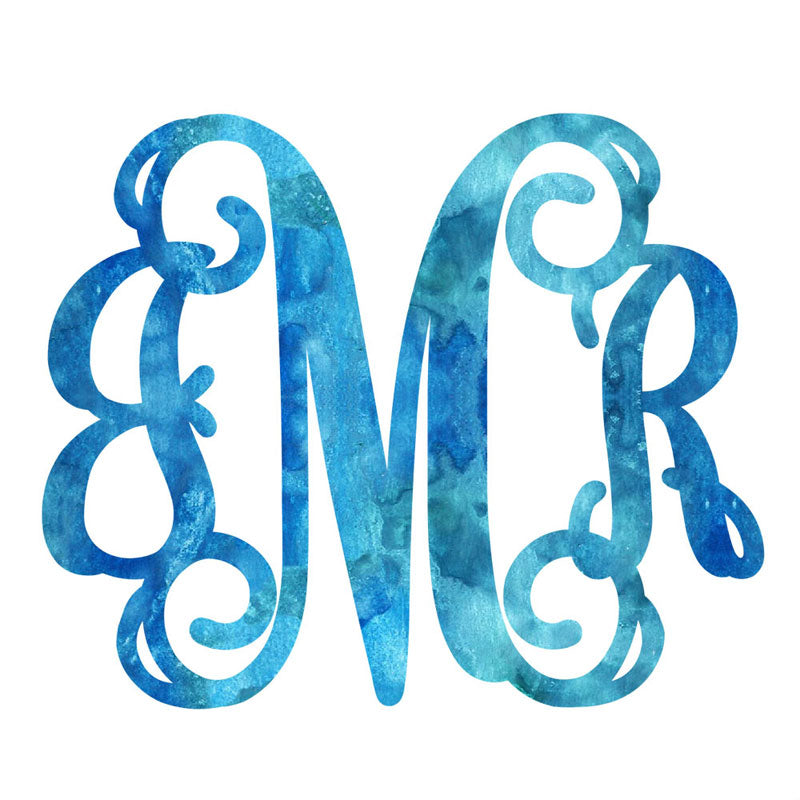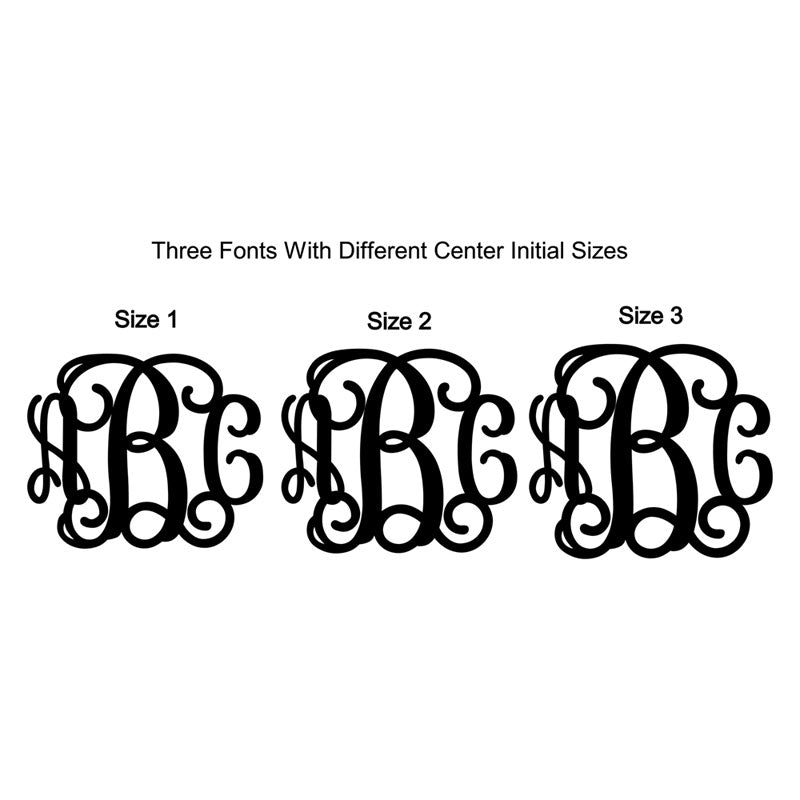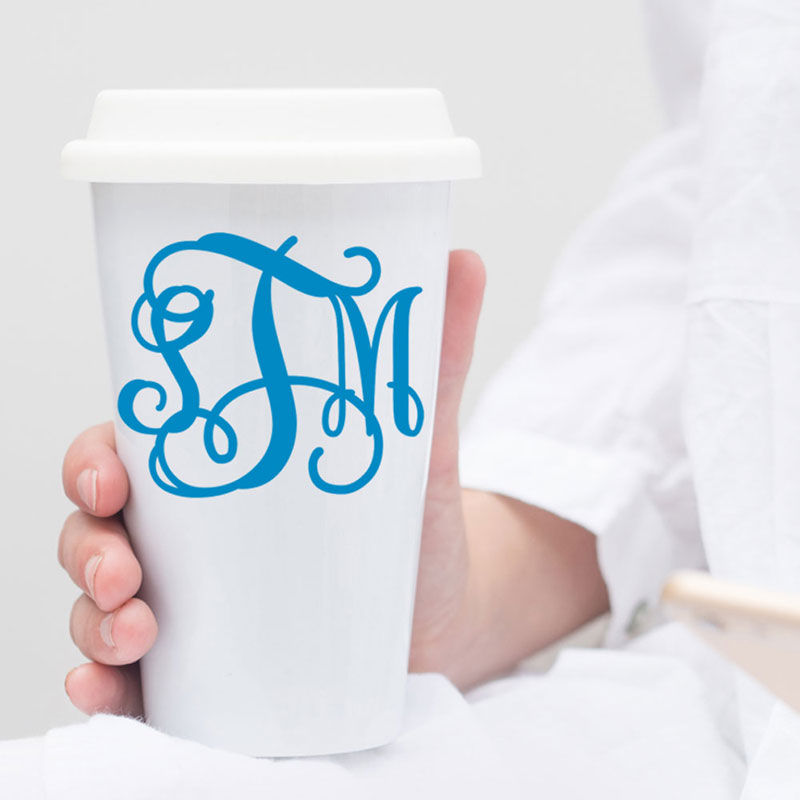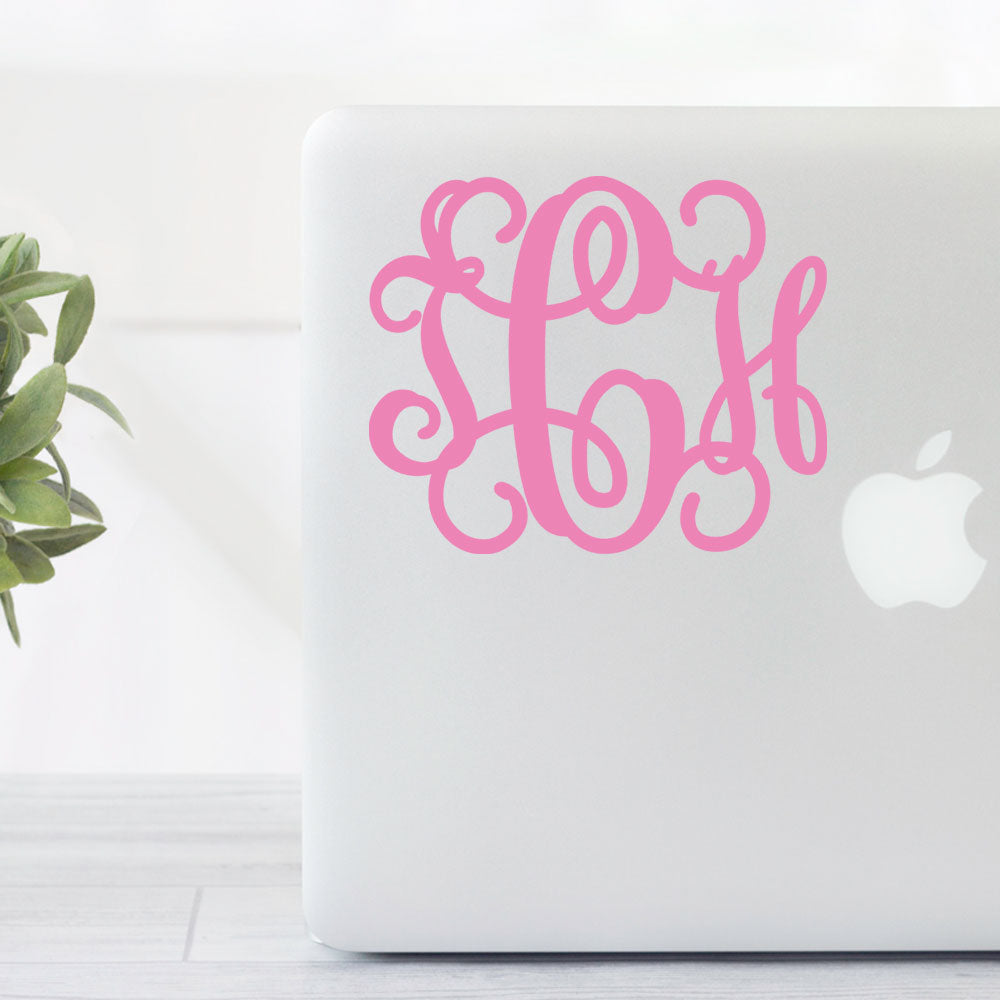
SLF-TF Vine Monogram Font
Do you enjoy working with vine monograms in your paper, vinyl, and other craft projects but you just hate maneuvering the letters to fit and balance evenly? Do you have a hard time with small size monograms because the letters are too thin? I have an answer to that!
I've taken this classic monogram style and made it into exactly what you need! With your purchase, you will receive a zip file with three fonts. The only difference between the three is the size of the middle letter. I also took great care in the spacing of letters in relation to one another.